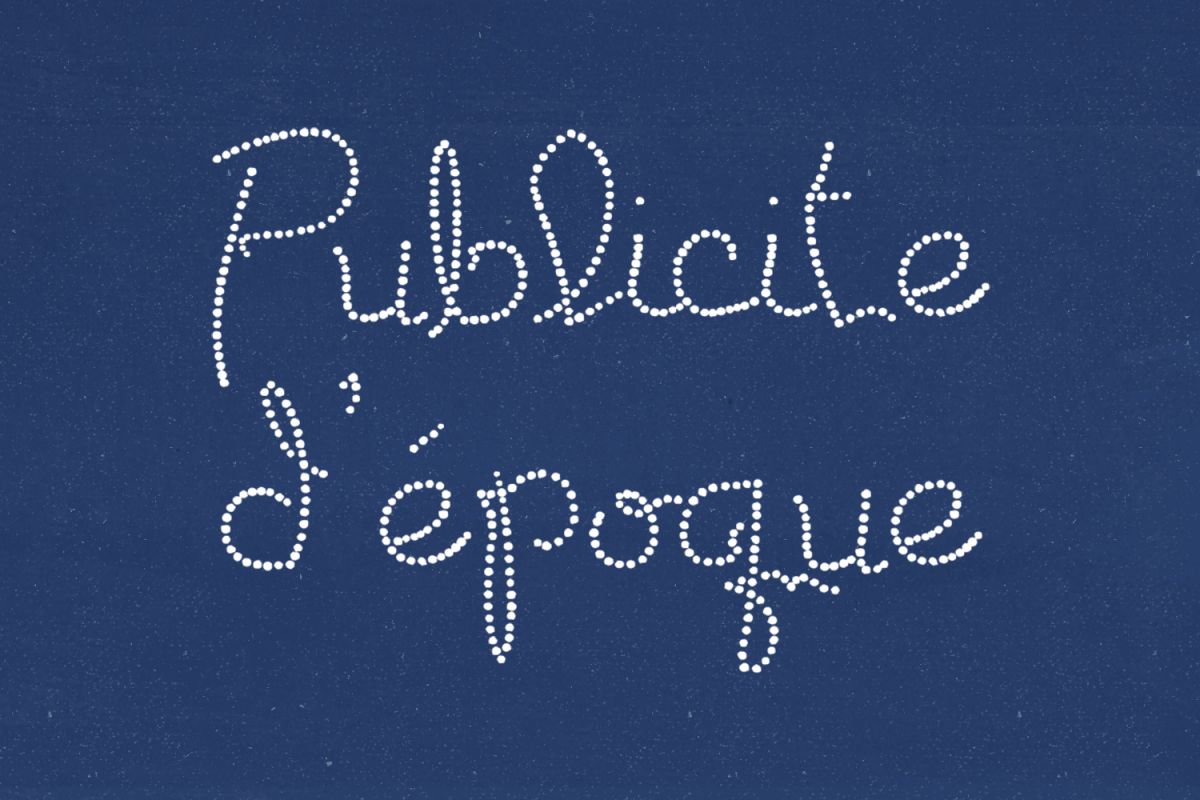
Publicite d'epoque
Based on a vintage French advertisement, Publicité d'époque was designed to resemble a chain of stars. It features a looping, exaggerated cursive and contains enough symbols to write in its native tongue.